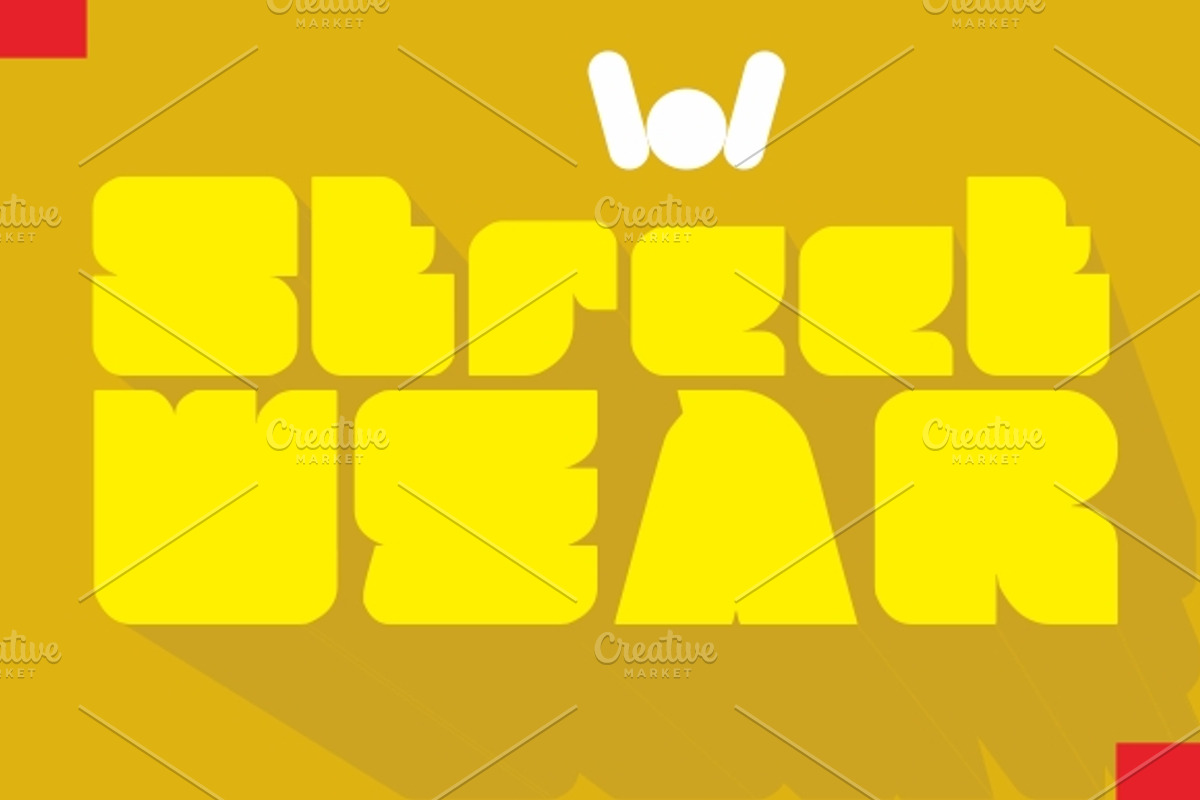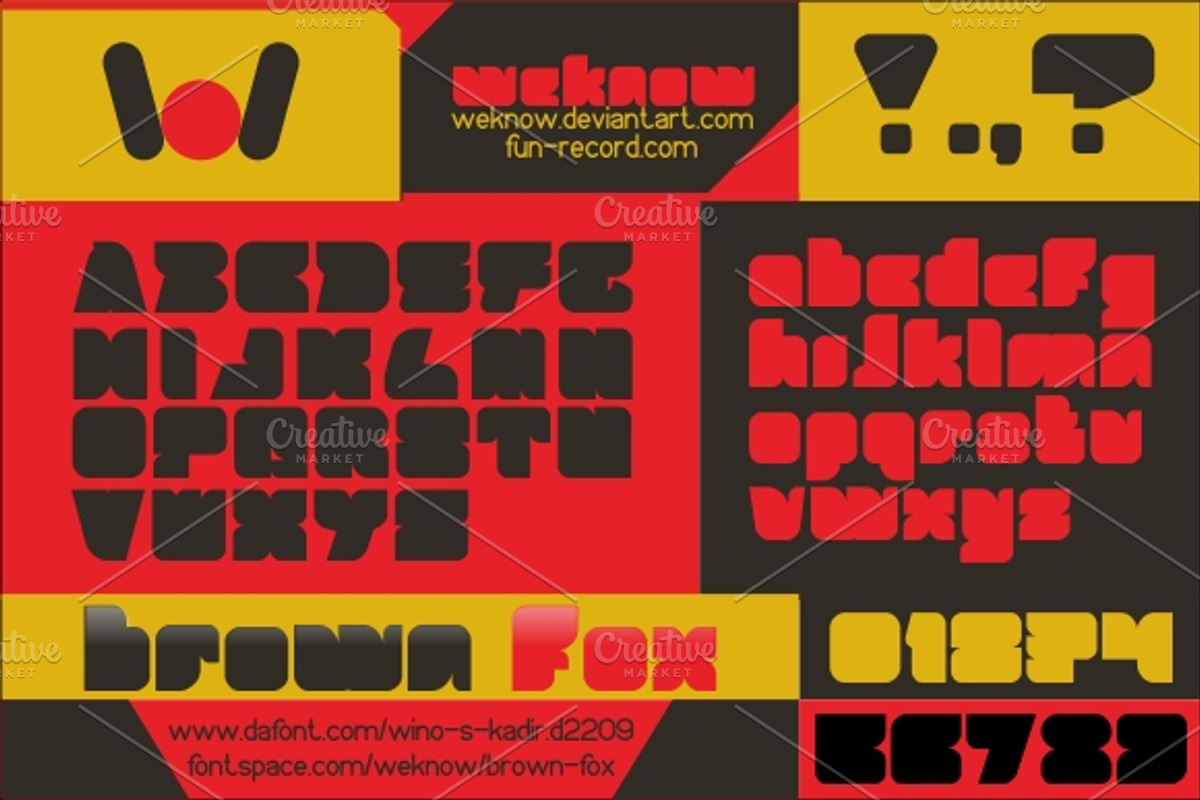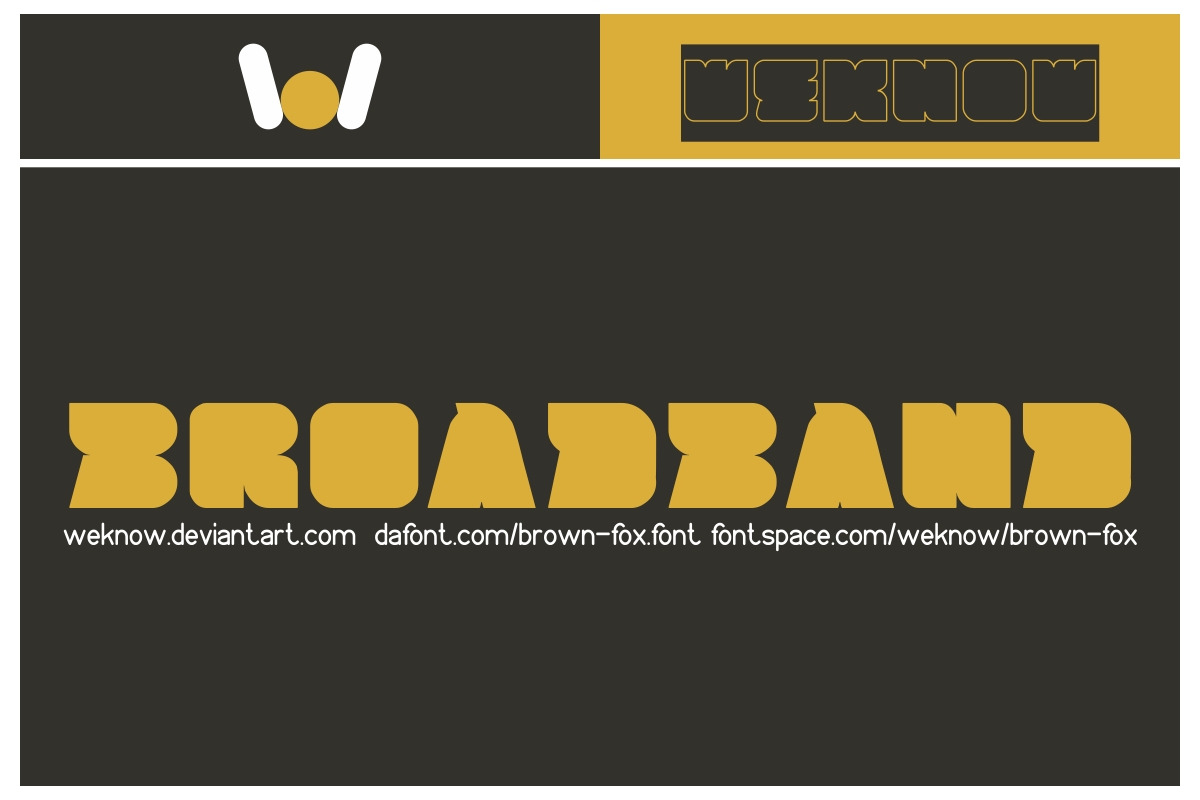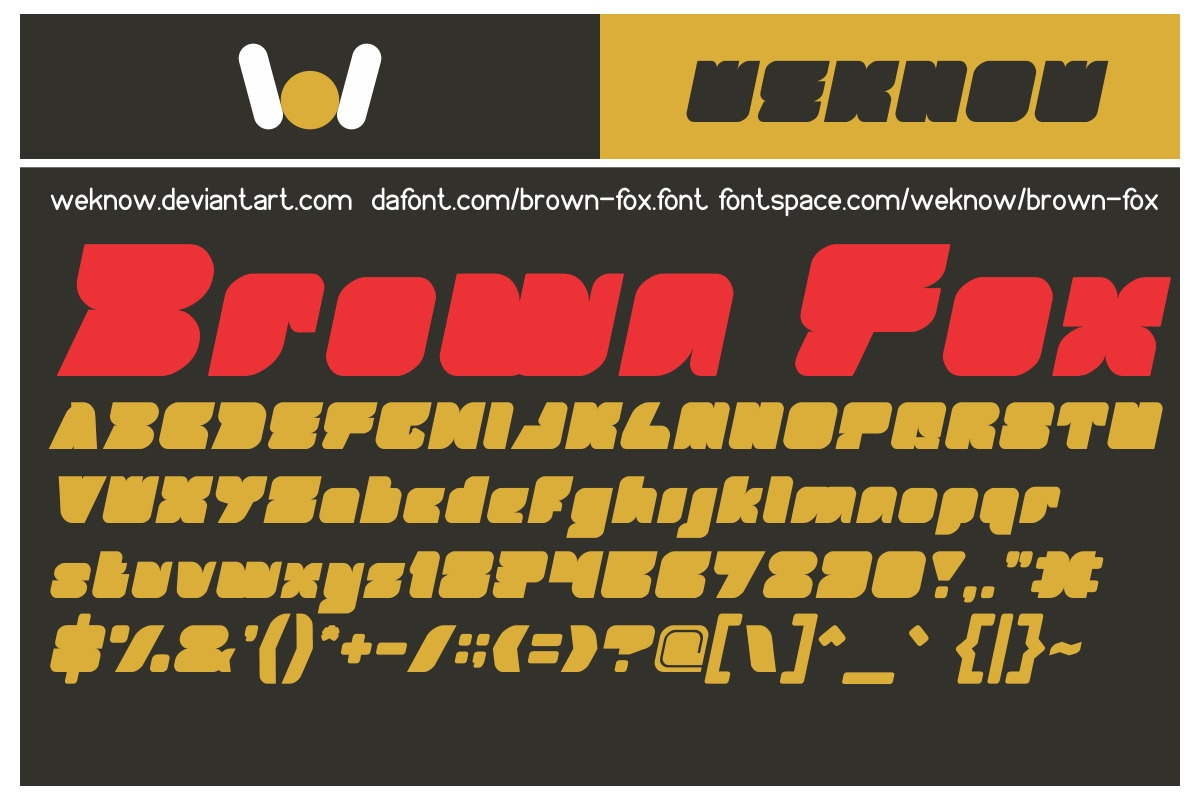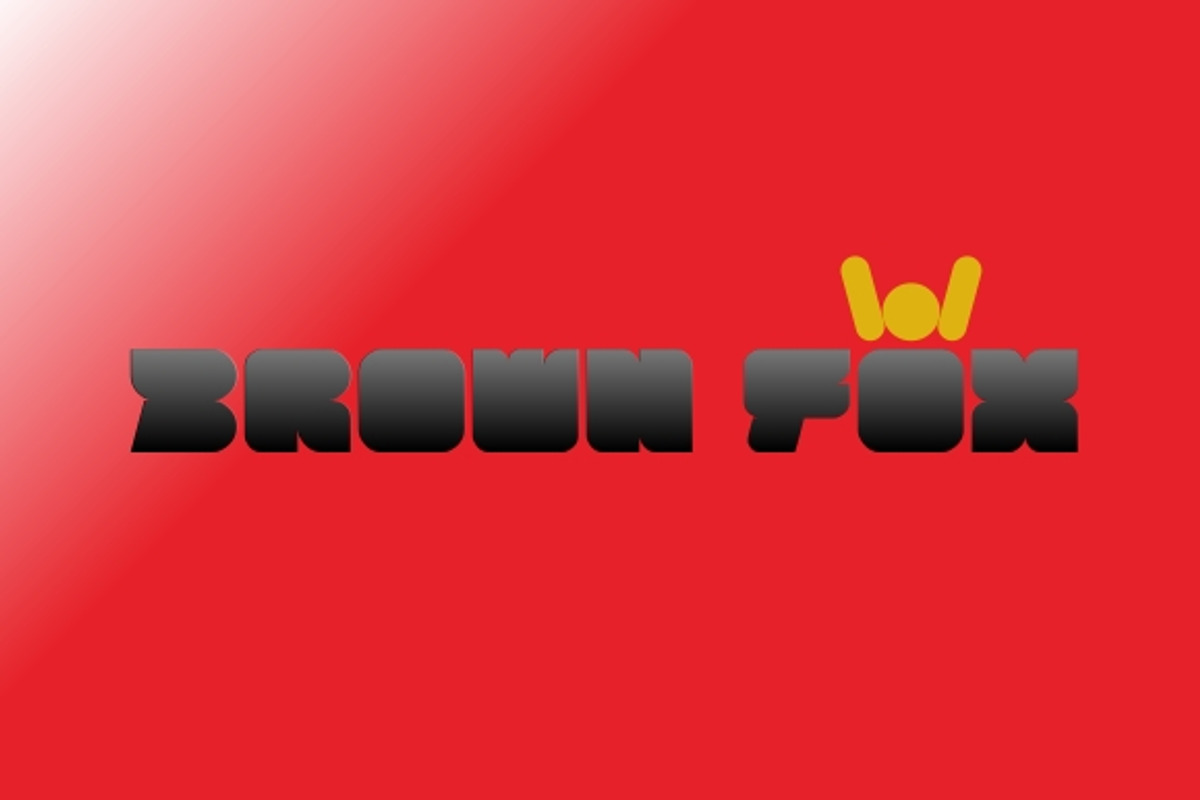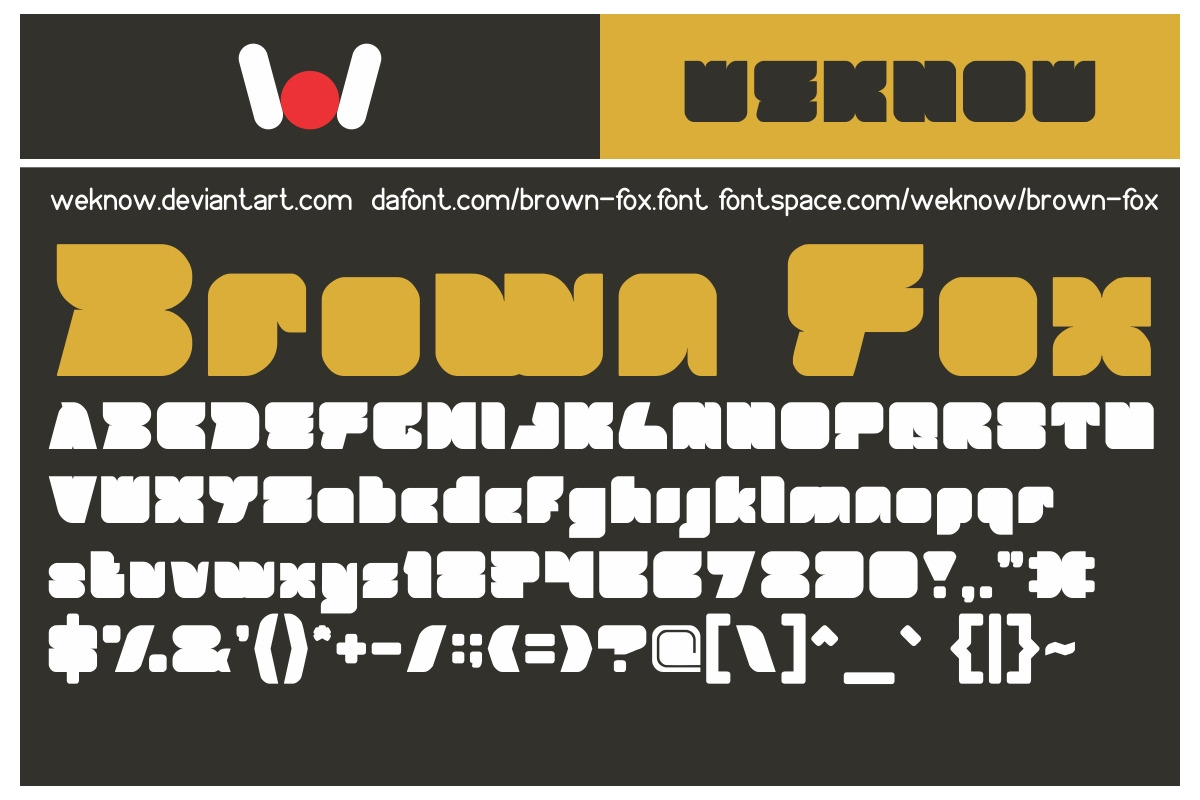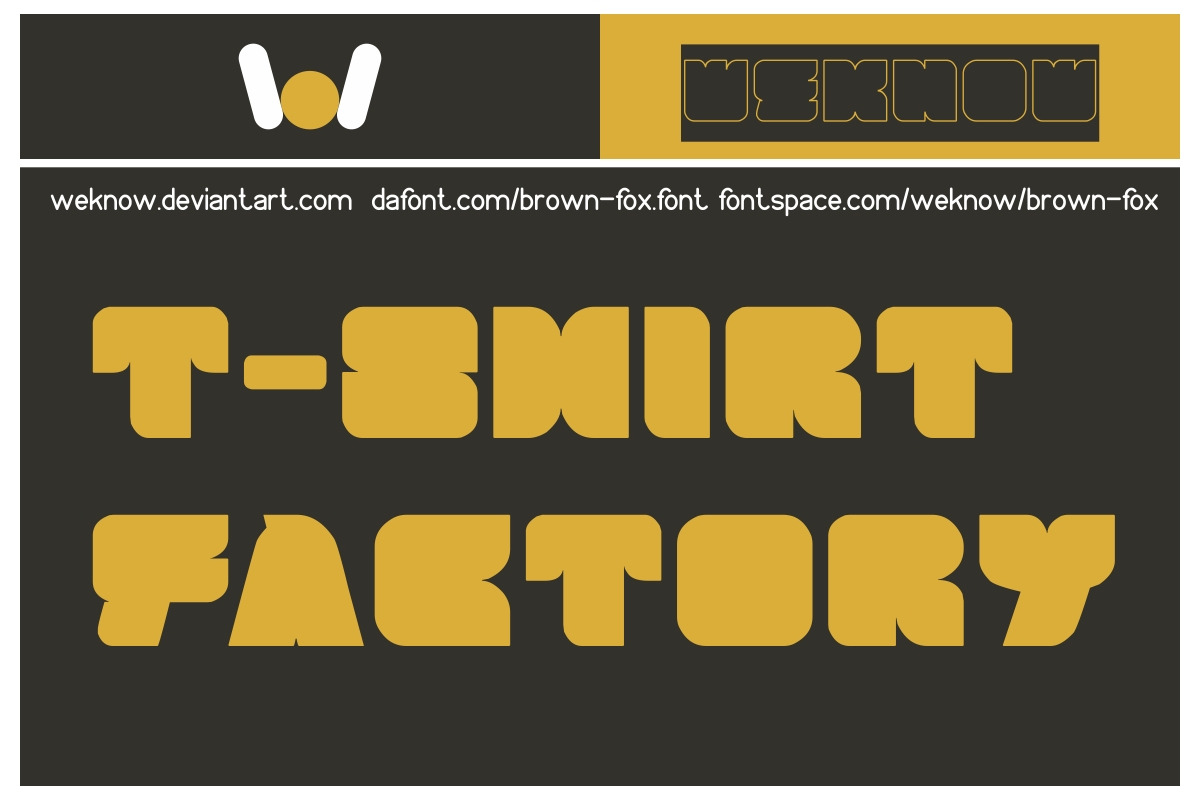
brown fox font
brown fox font by weknow is a font selected for branding, posters, packaging, typography.
Why brown fox font is worth a look
brown fox font by weknow fits naturally into Branding, posters, packaging, typography.